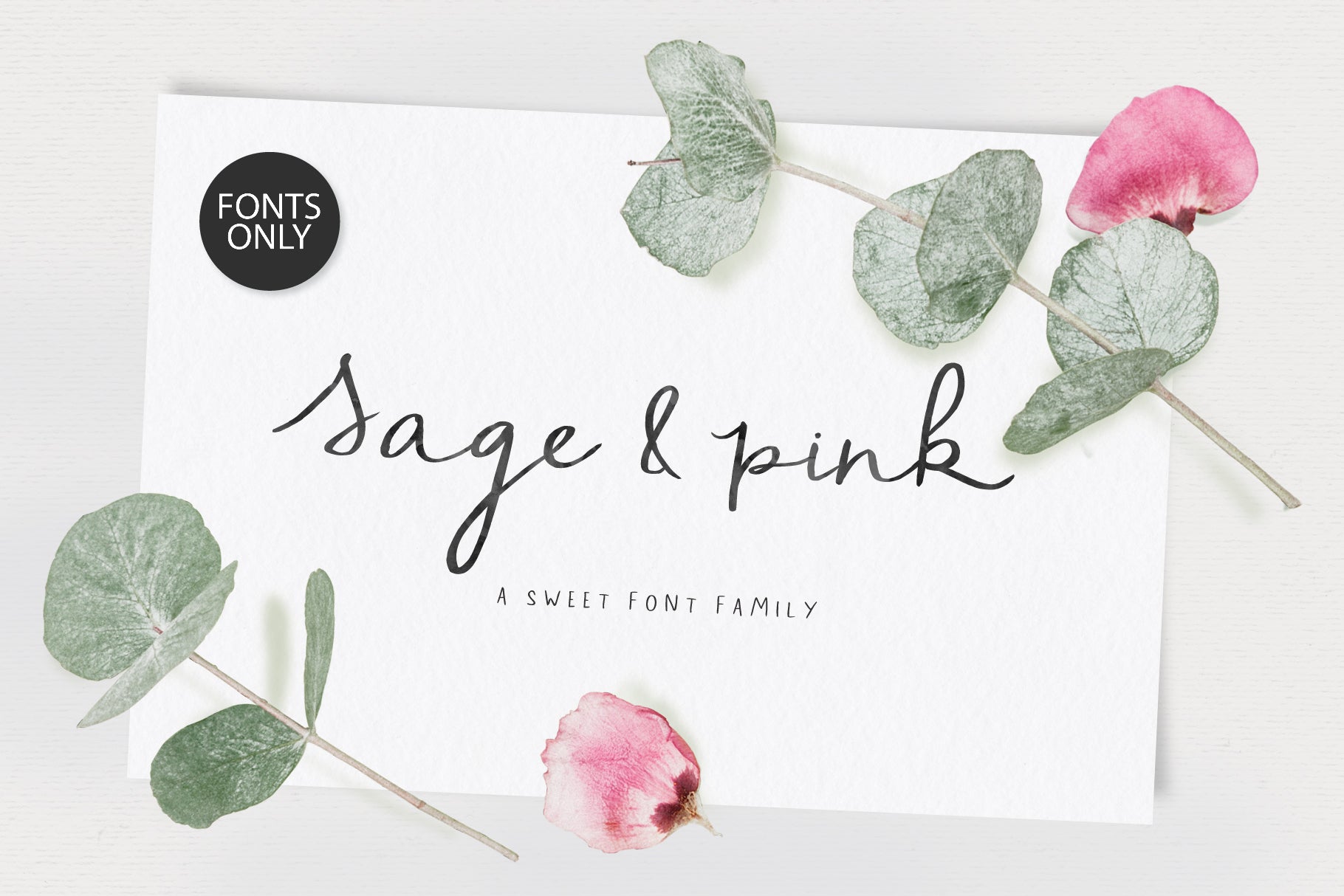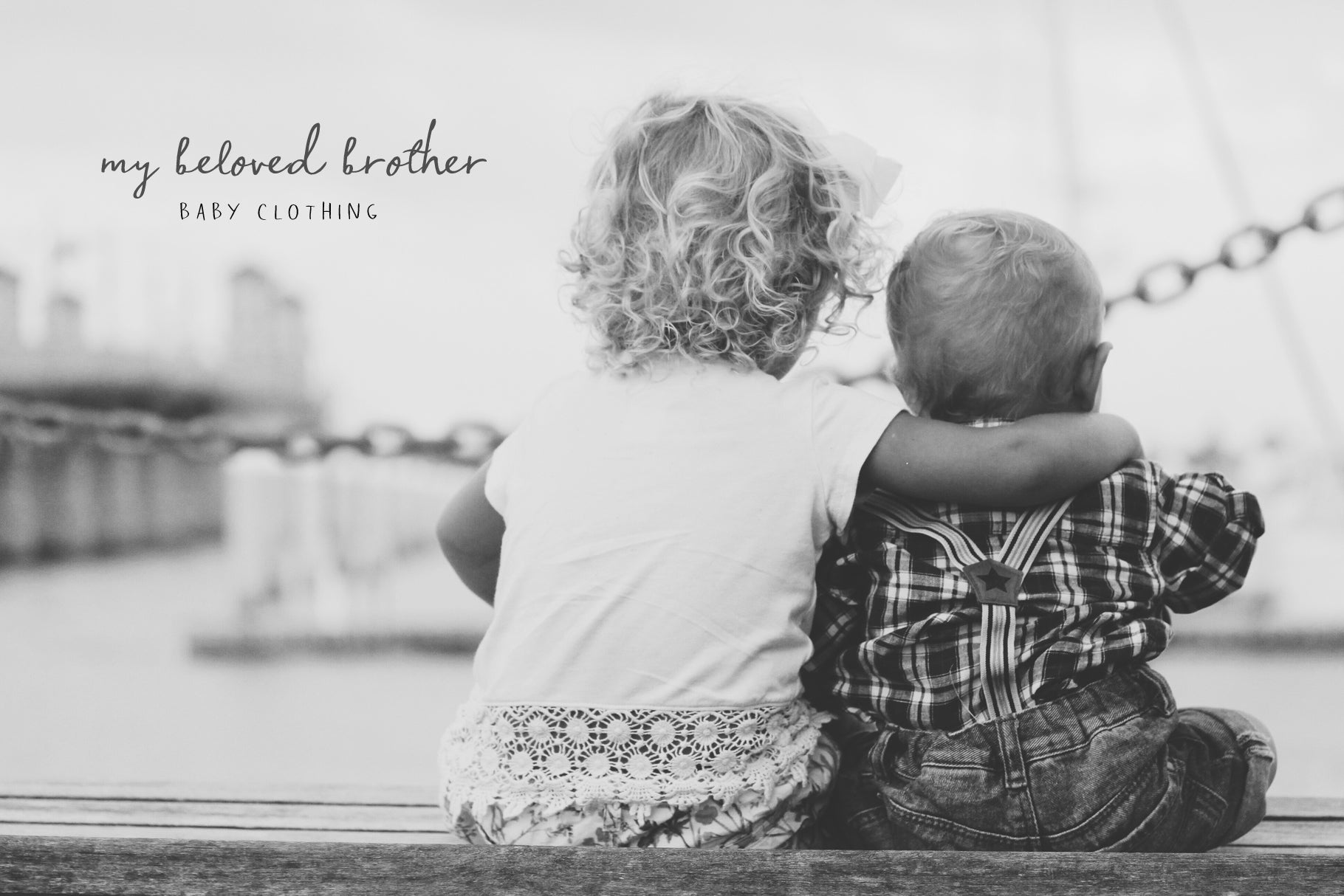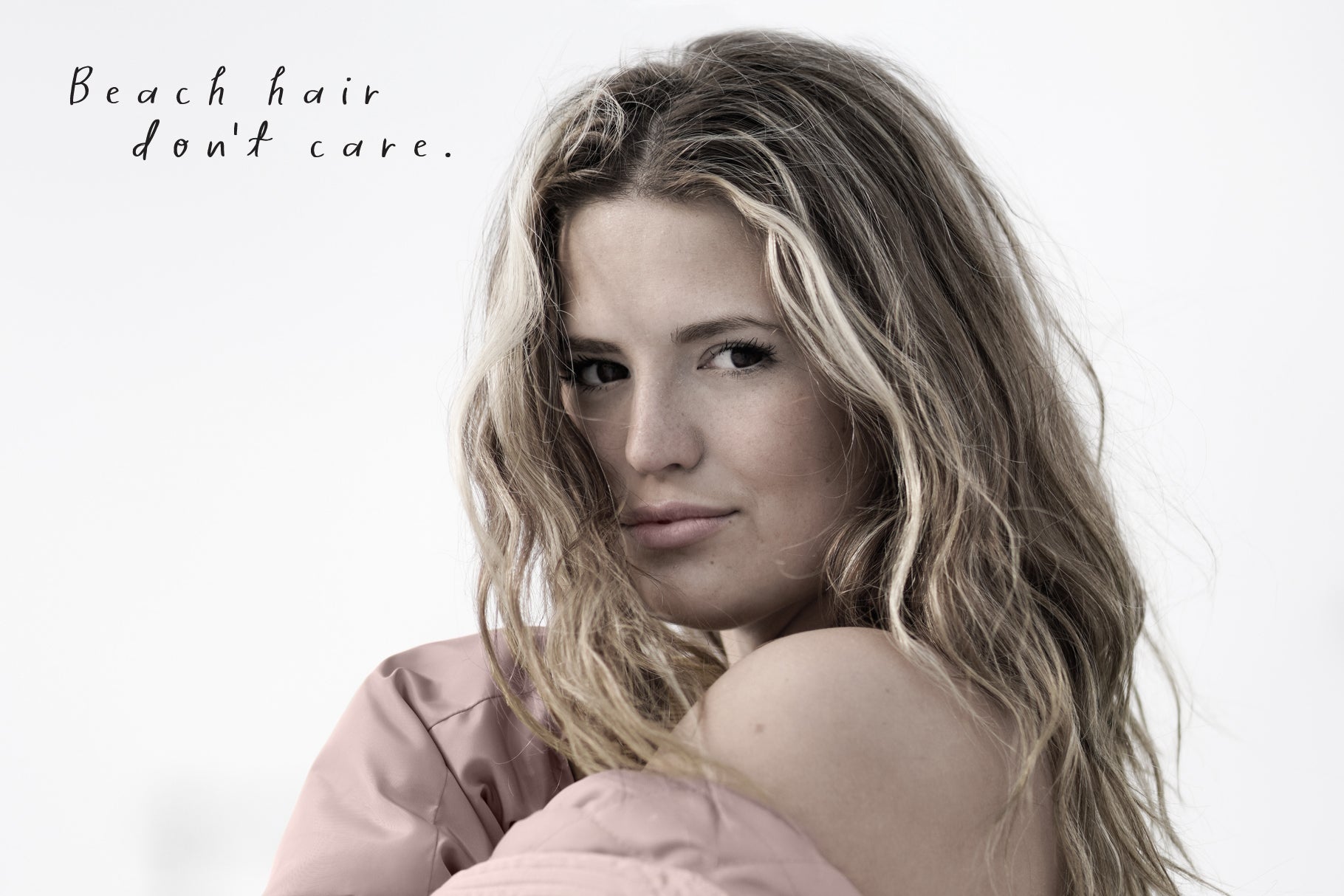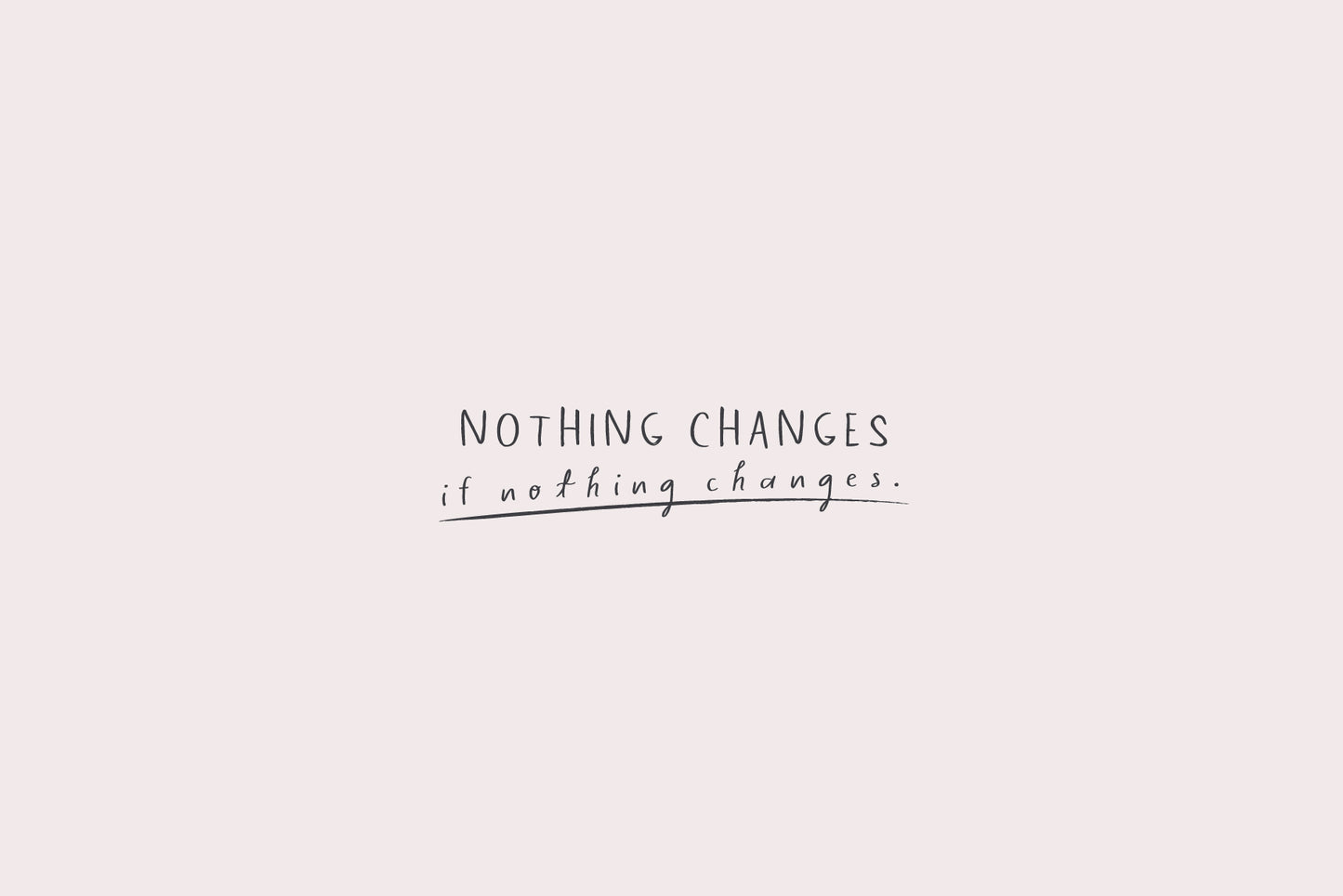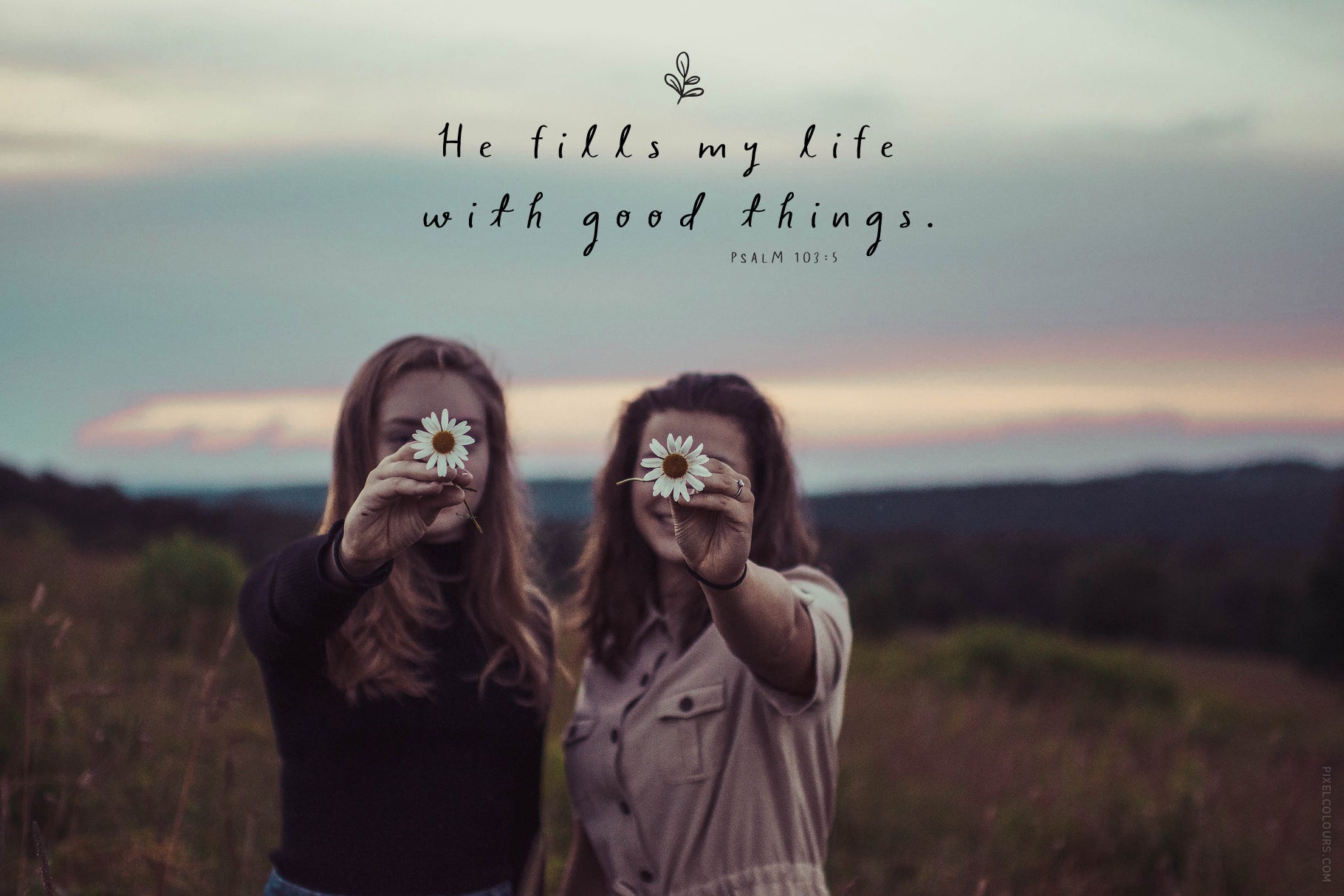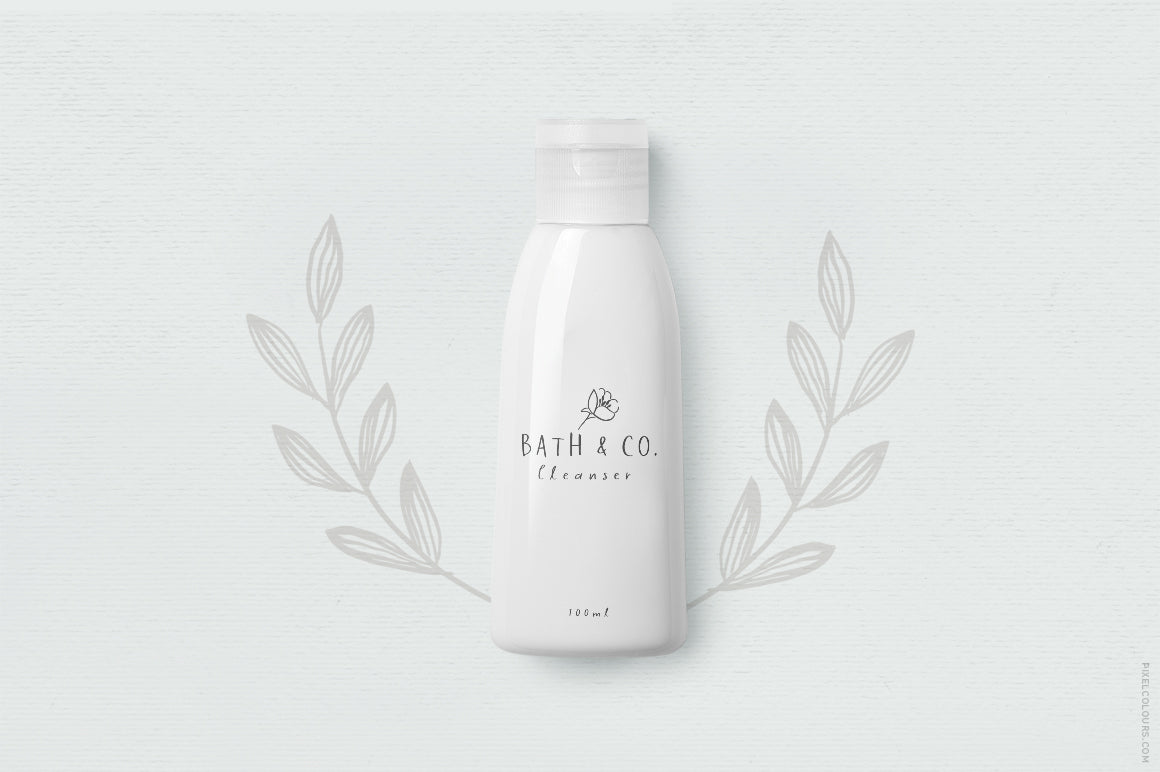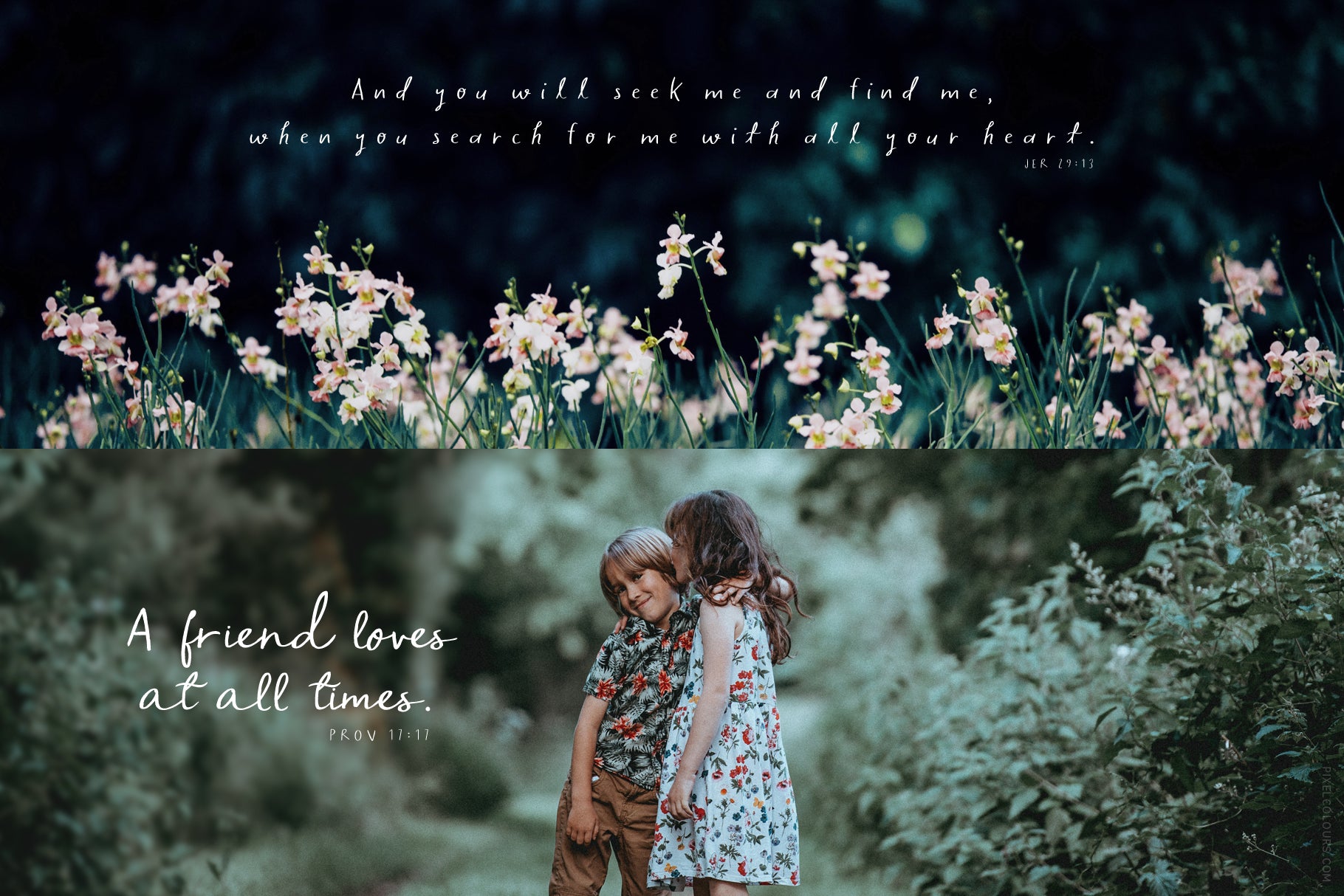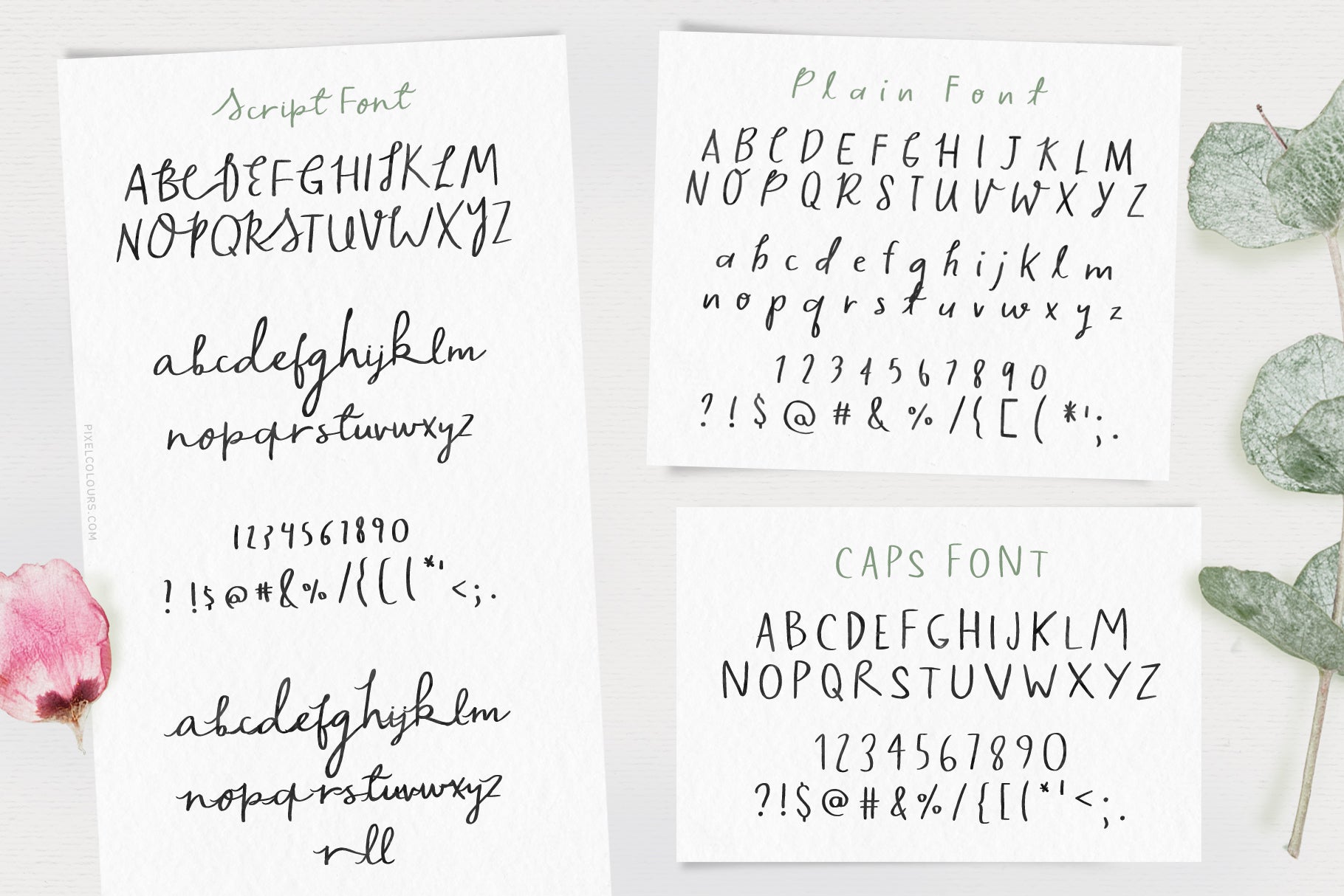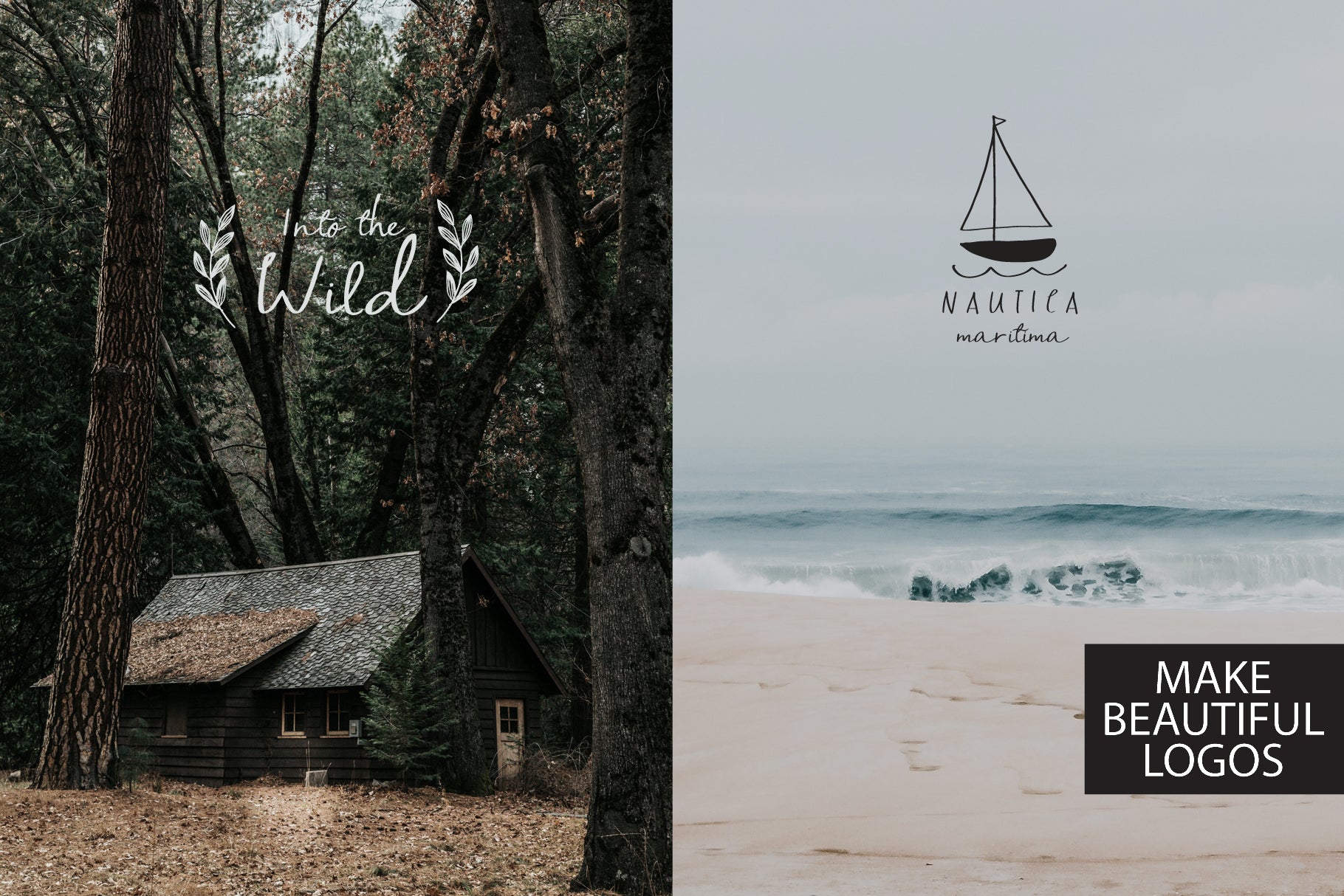
Sage and Pink Handwritten Font Family
Sage and Pink is a beautiful family of 2 script fonts and a capitals font lovingly designed to look as close as possible to a natural handwriting. Great for creating professional, modern logos, quotes, wedding invitations, stationery, etc.
- Sage and Pink Script: Full set of uppercase and lowercase characters with numerals, punctuation and alternates/swashes that are also included as a separate font so you can access it quickly in any program.
- Sage and Pink Plain: A second style that allows you to create different feels with the same handwritten style.
- Sage and Pink Caps: A beautiful uppercase font for pairing.